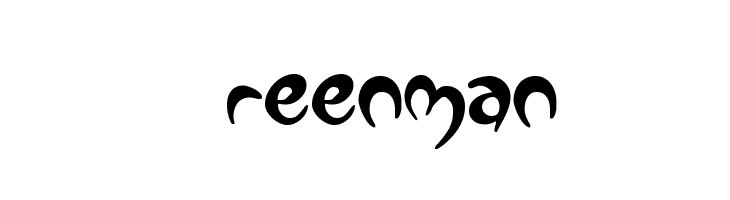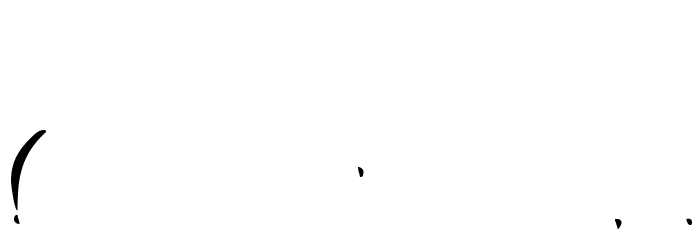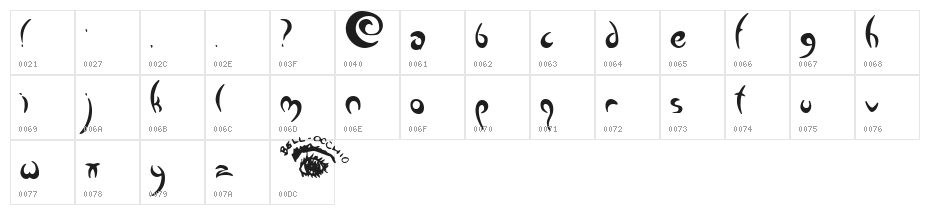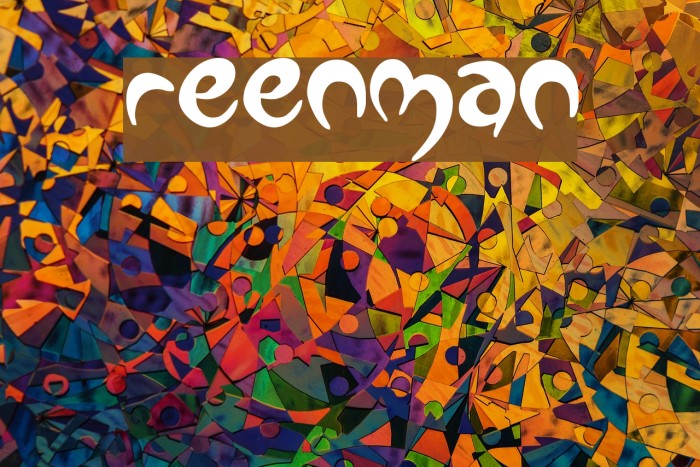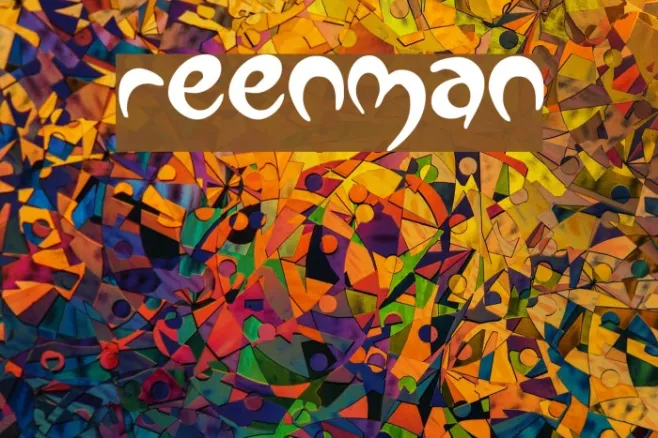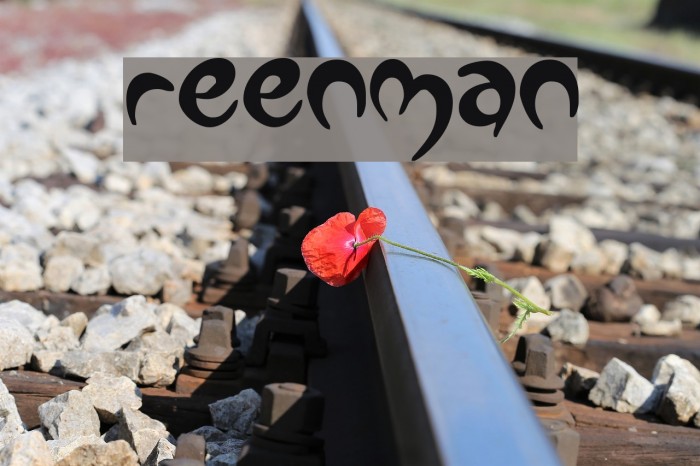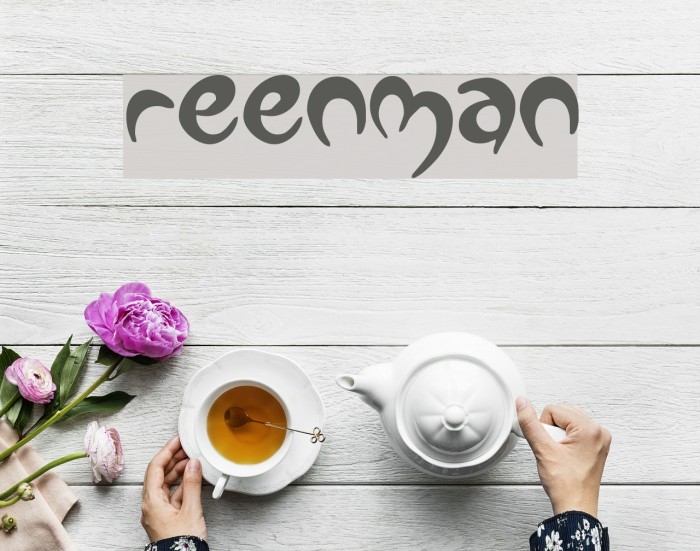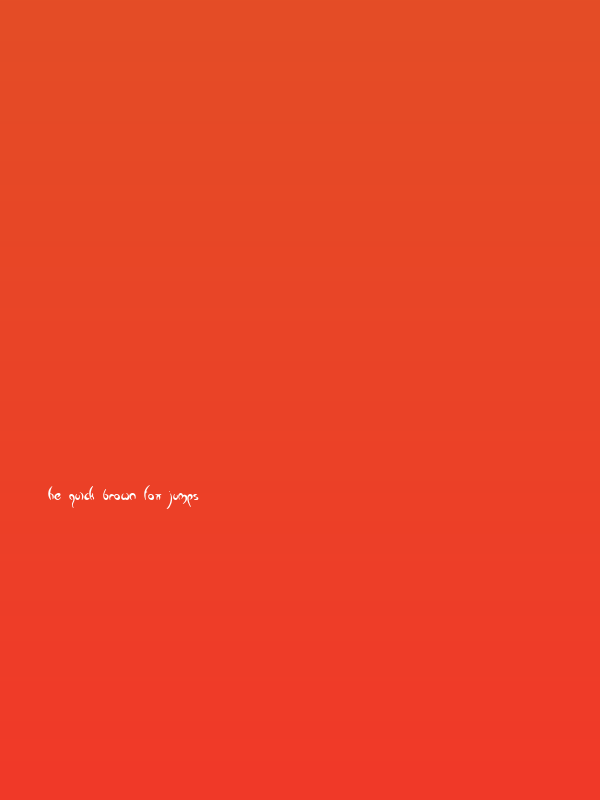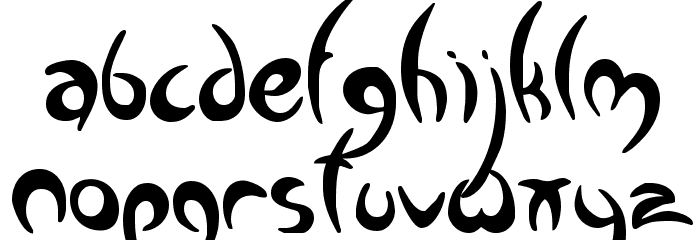
Greenman Font
Greenman Description
This font features a whimsical and organic design, characterized by its flowing, curvilinear forms and playful aesthetic. The letters have a hand-drawn quality, with varying stroke widths that give it a dynamic and lively appearance. The font's unique style is reminiscent of natural elements, with some characters resembling leaves or vines. This artistic approach makes it stand out, providing a sense of creativity and movement. The lowercase letters are particularly distinctive, with elongated ascenders and descenders that add to the font's overall charm. The spacing between characters is relatively tight, enhancing the cohesive look of the text.
| Proposed Projects | Ideal for creative projects such as children's book covers, fantasy-themed designs, or nature-inspired branding. |